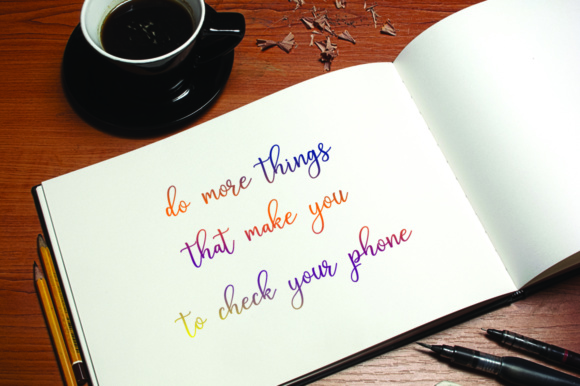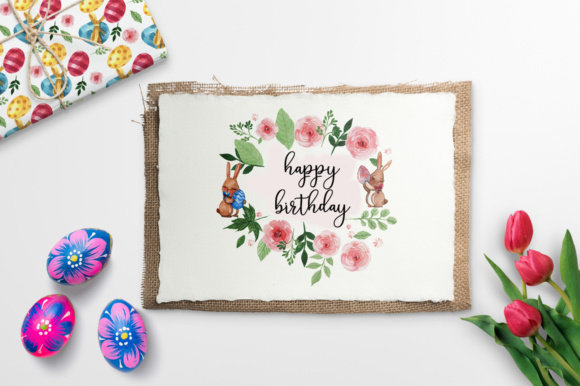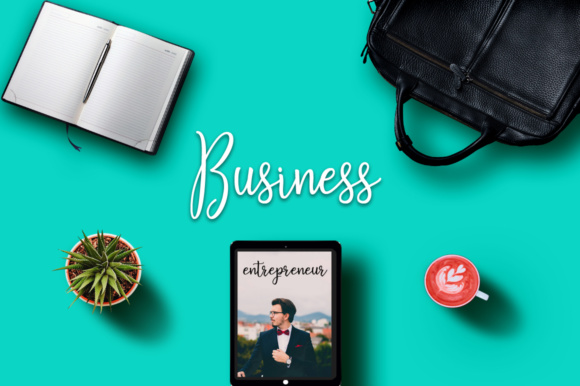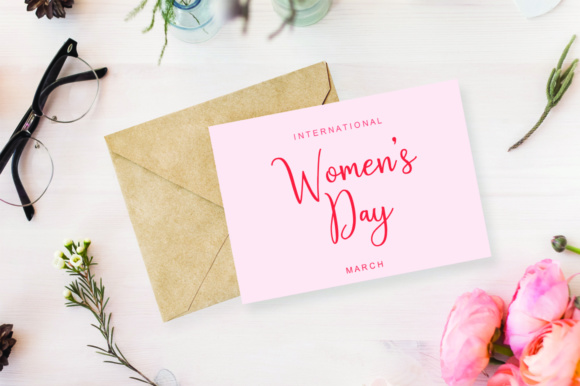
Aldabela Font
About Aldabela Font
Aldabela is a beautiful modern script font that will add a ton of refreshing nuances to your work. This elegant font has a relaxed quality but with a well constructed vibe, so you can use it across a wide range of projects.